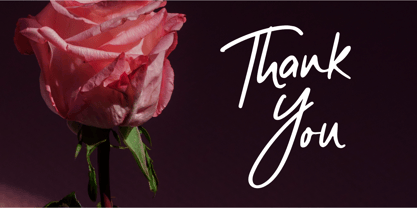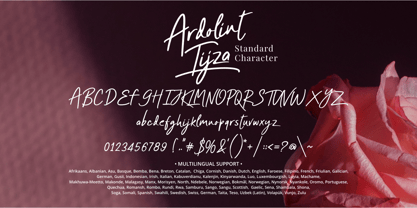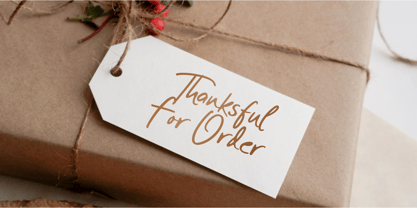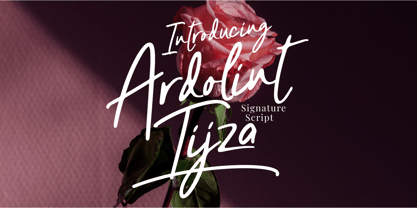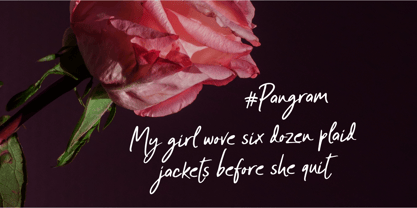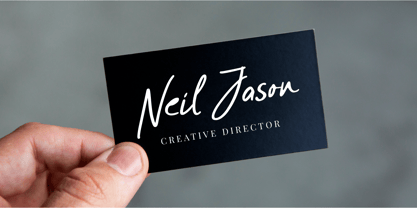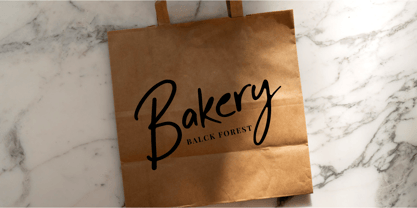
Ardolint Tijza
The Ardolint Tijza Font Family was designed by Abdullah Mabhal and published by Mabhal Studio. Ardolint Tijza contains 1 styles. More about this family
Ardolint Tijza is a beautiful paint-brushed script font that combines elegance, creativity, and a natural handcrafted feel. Designed with smooth brush strokes and delicate letterforms, this font brings an authentic handwritten touch to a wide variety of design projects. Its stylish and expressive appearance makes it perfect for logos, branding materials, product labels, packaging, photography overlays, watermarks, social media content, wedding invitations, greeting cards, and special event designs. Ardolint Tijza is also ideal for quotes, stationery, promotional materials, and any creative project that requires a sophisticated script style. The flowing characters and artistic brush texture create a warm and personal impression, helping your designs stand out with charm and professionalism. Whether you're working on commercial branding or personal creative projects, Ardolint Tijza adds a beautiful script taste that enhances the overall visual appeal of your work.